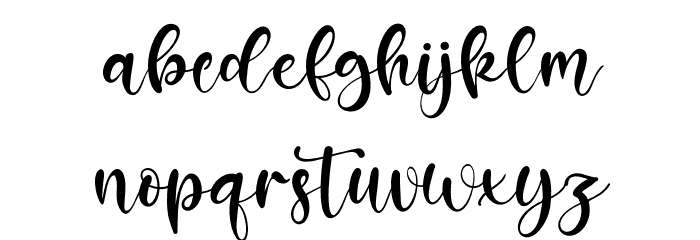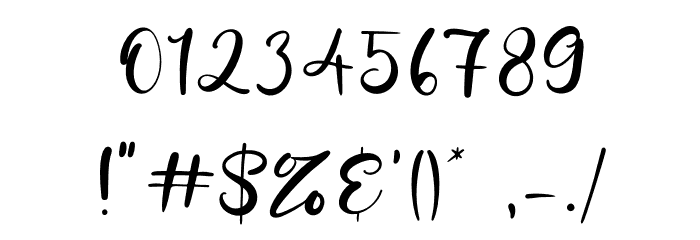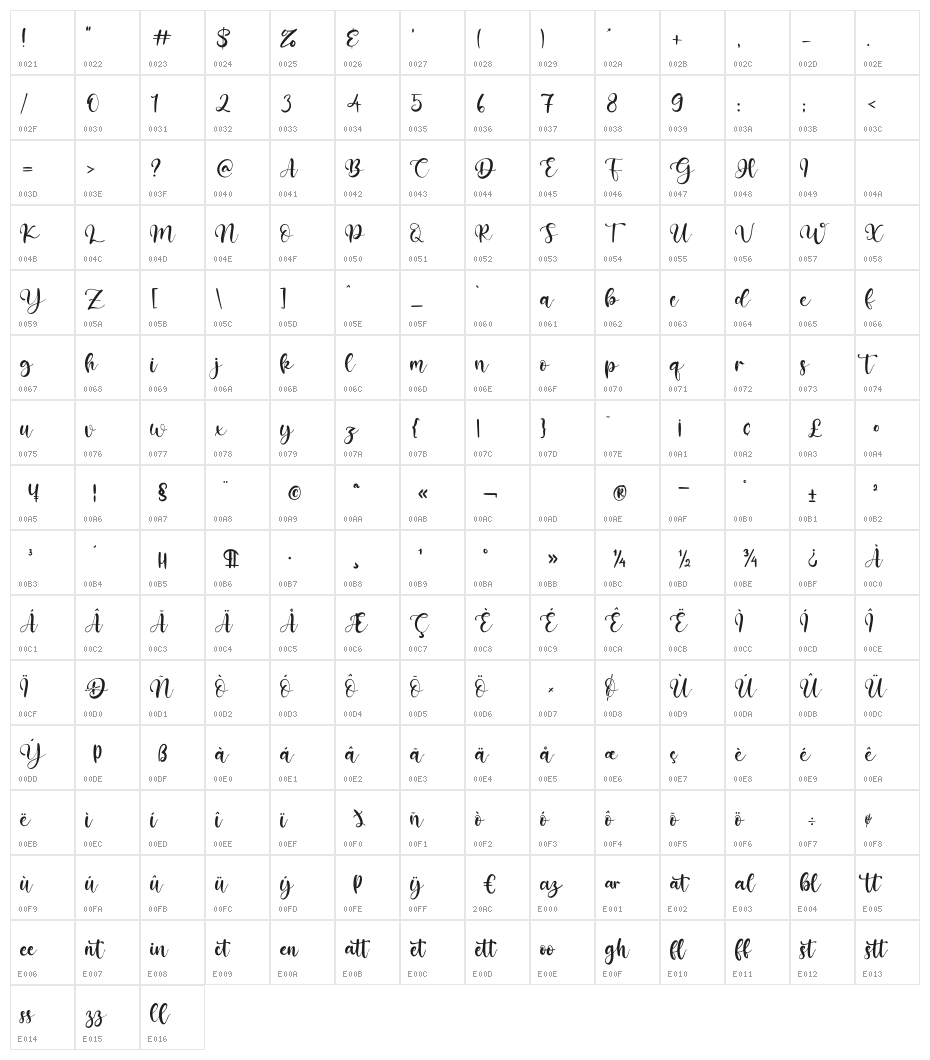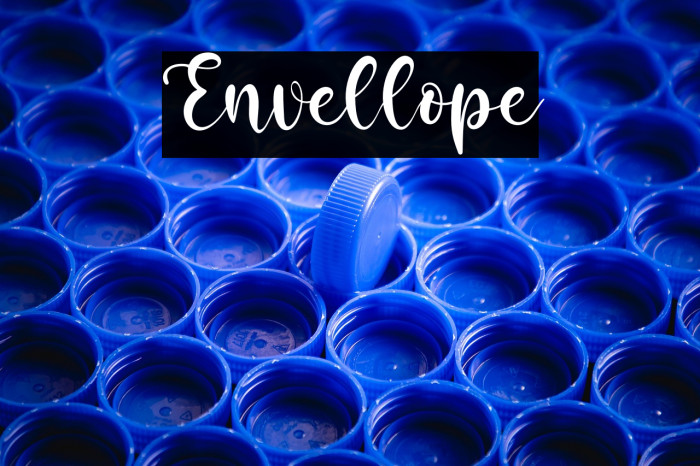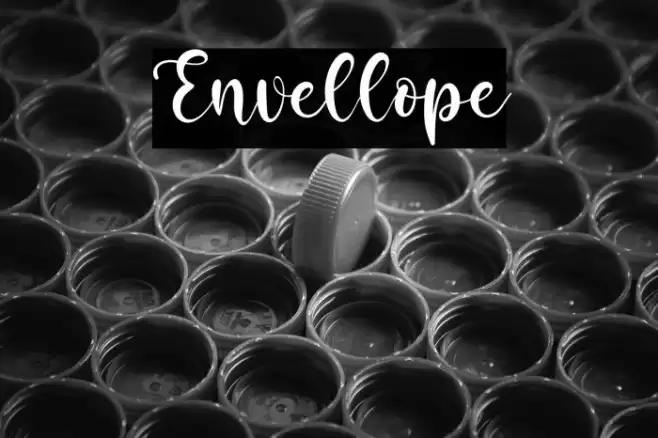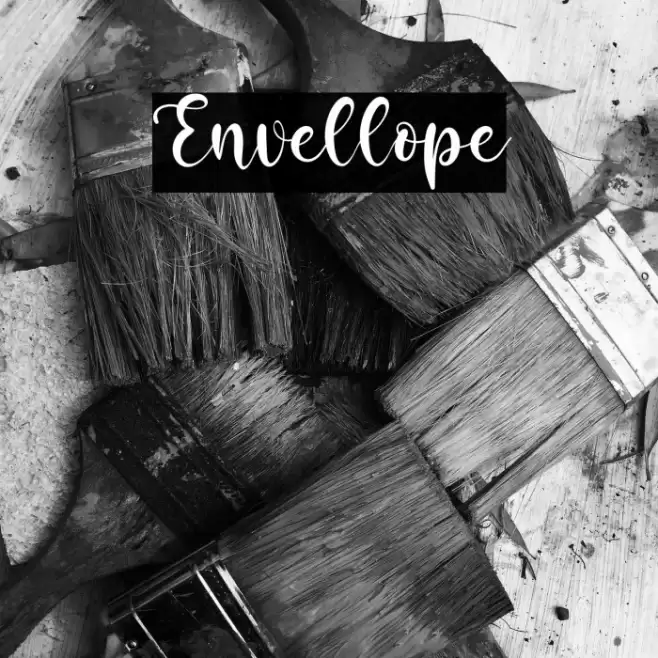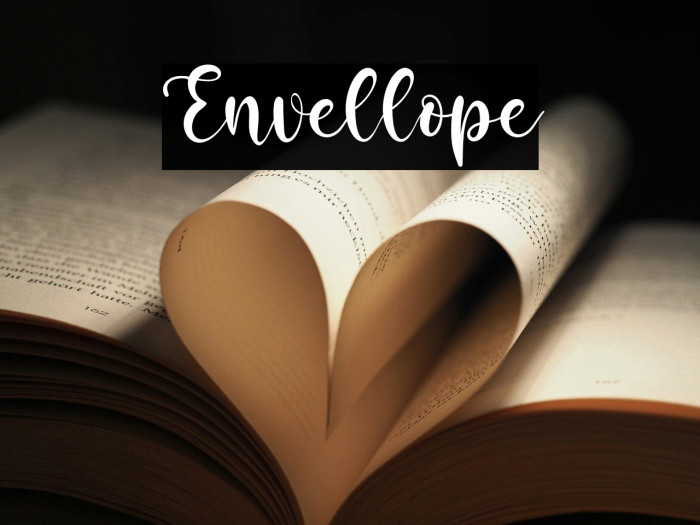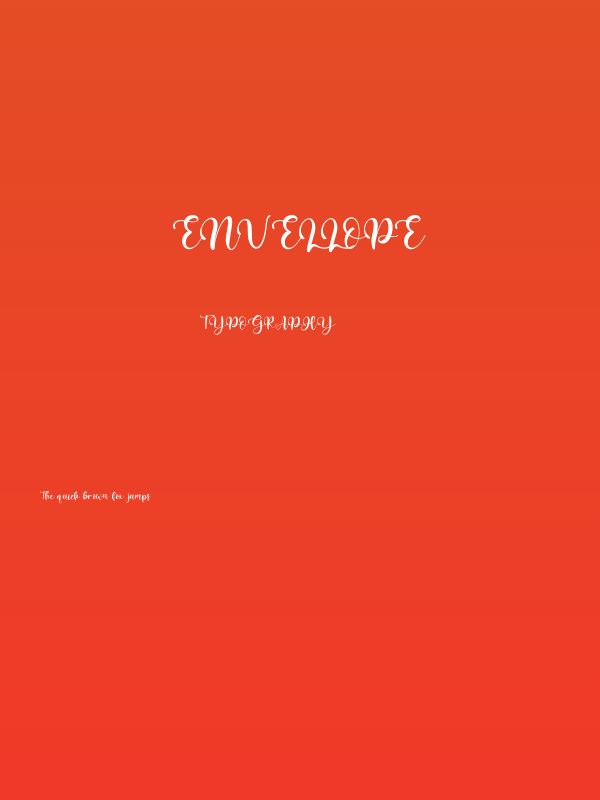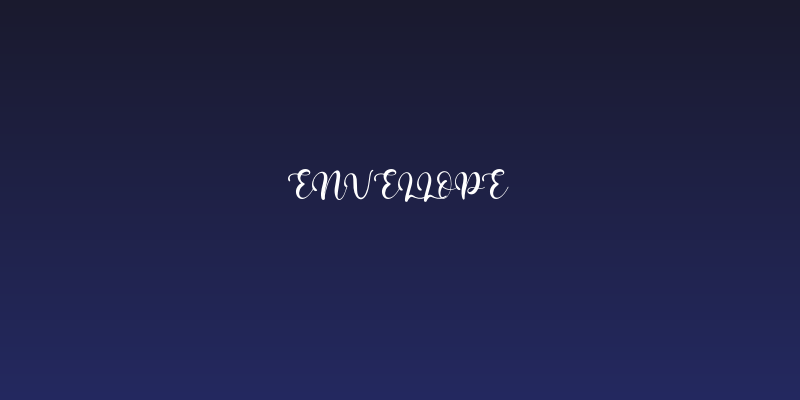
Envellope Font
This font features an elegant and flowing script style, characterized by its smooth, cursive letterforms that convey a sense of sophistication and grace. The uppercase letters are particularly ornate, with sweeping loops and flourishes that add a decorative touch. The lowercase letters maintain a consistent flow, enhancing readability while retaining the font's artistic flair. Numbers and special characters are designed to match the overall aesthetic, ensuring a cohesive look across all text elements. The font's design is well-suited for projects that require a touch of elegance and creativity.
An elegant, flowing script font with ornate uppercase and smooth lowercase letters.
- Proposed Projects: Ideal for wedding invitations, greeting cards, branding, and elegant logo designs.
- Use Case: Logos, Invitations, Greeting Cards